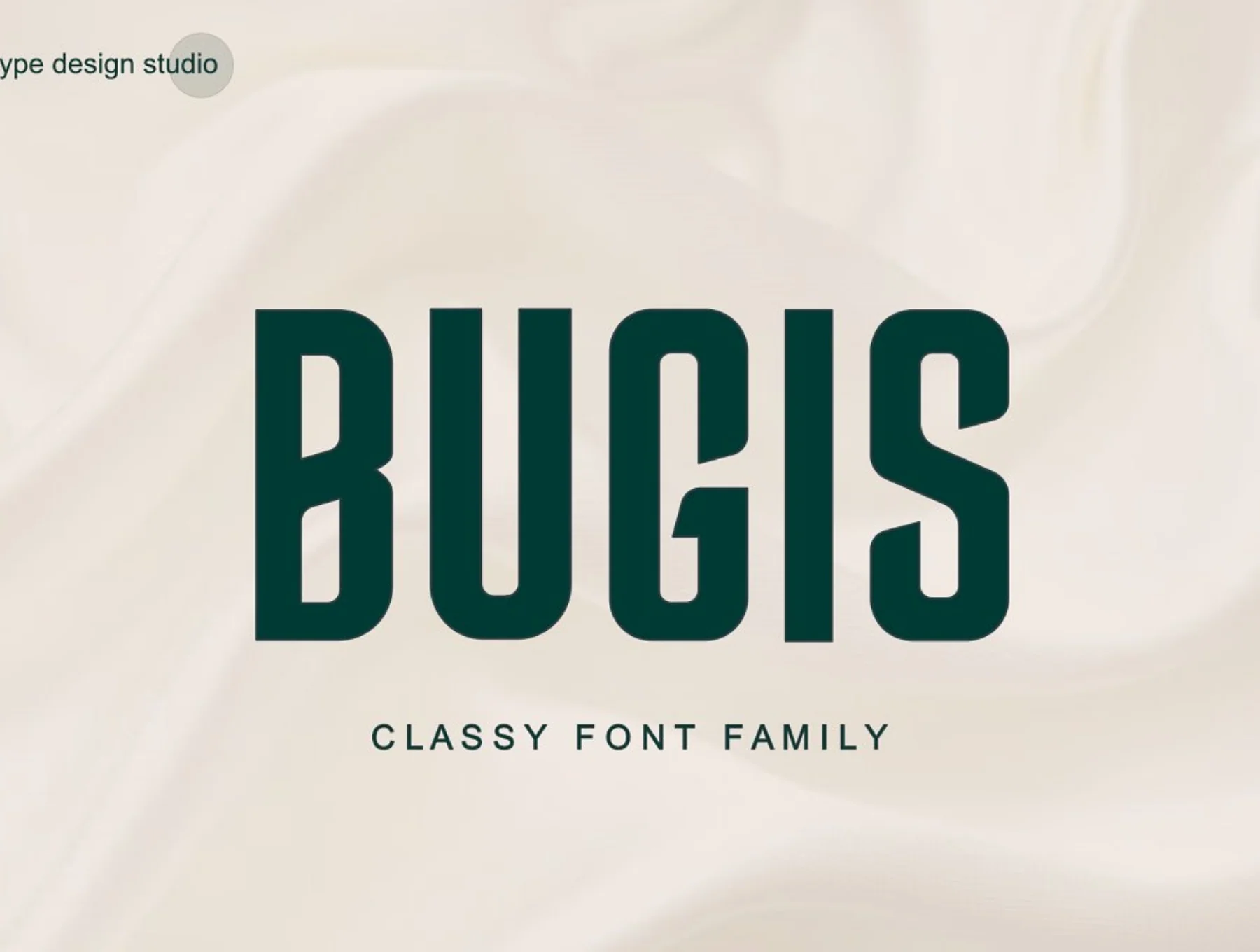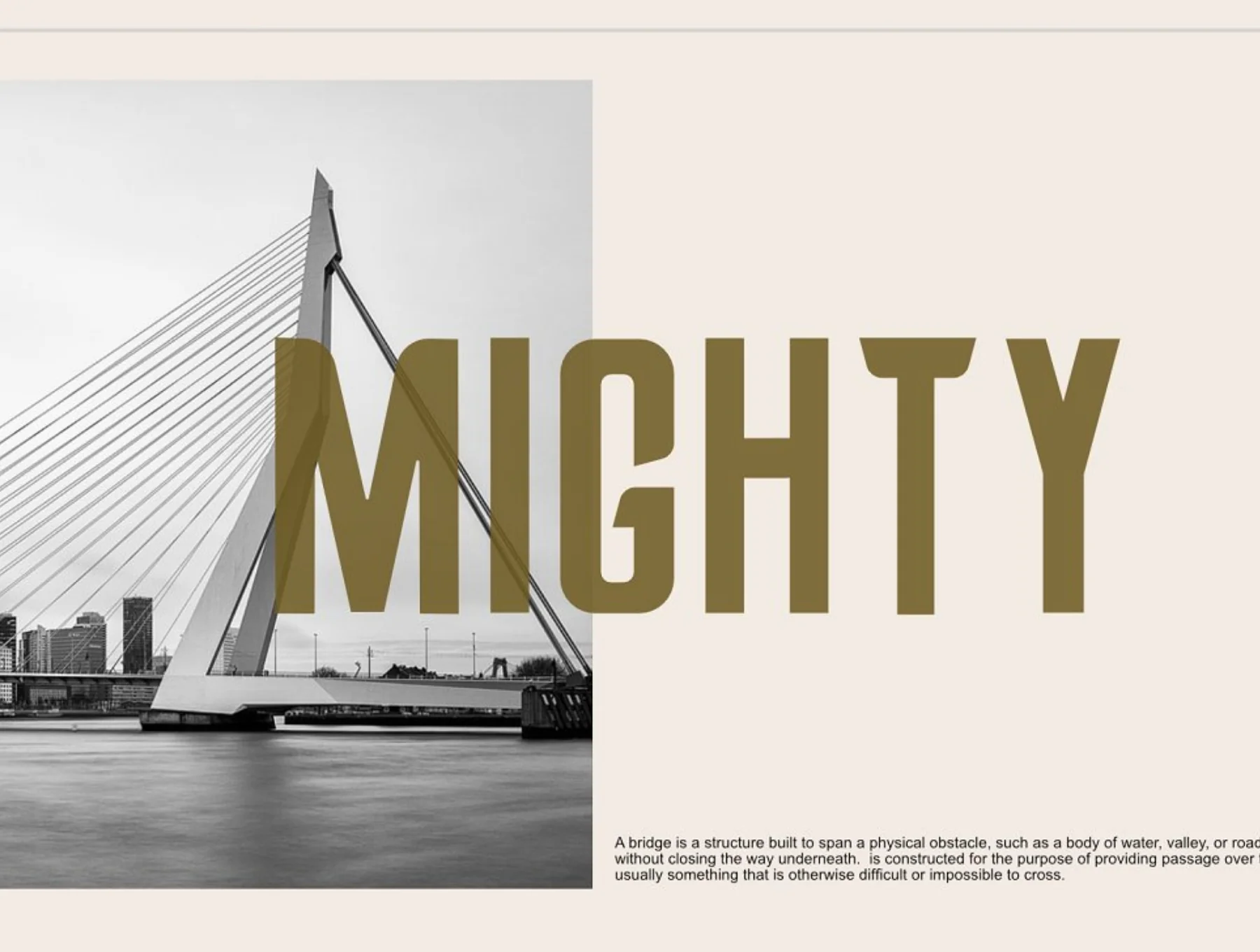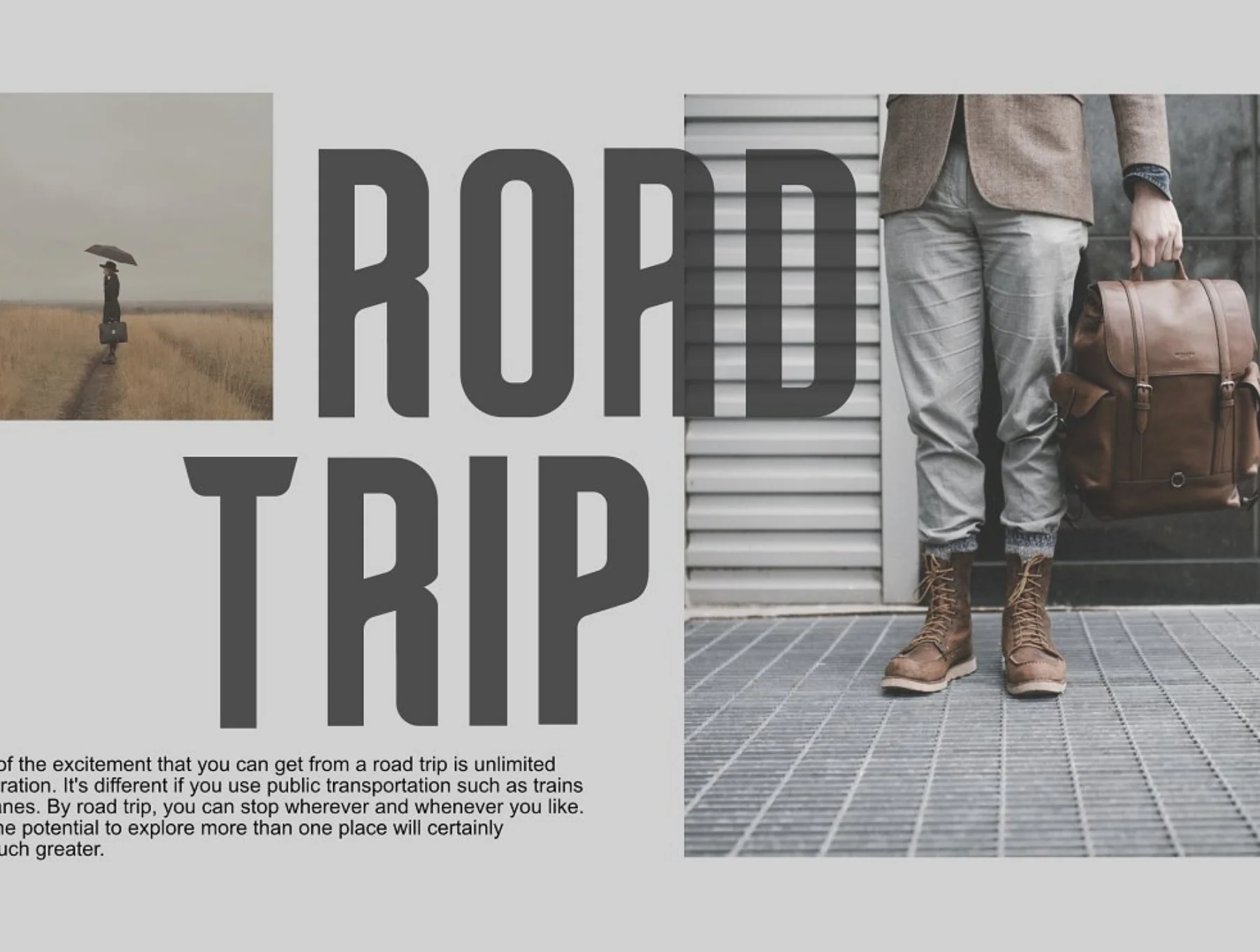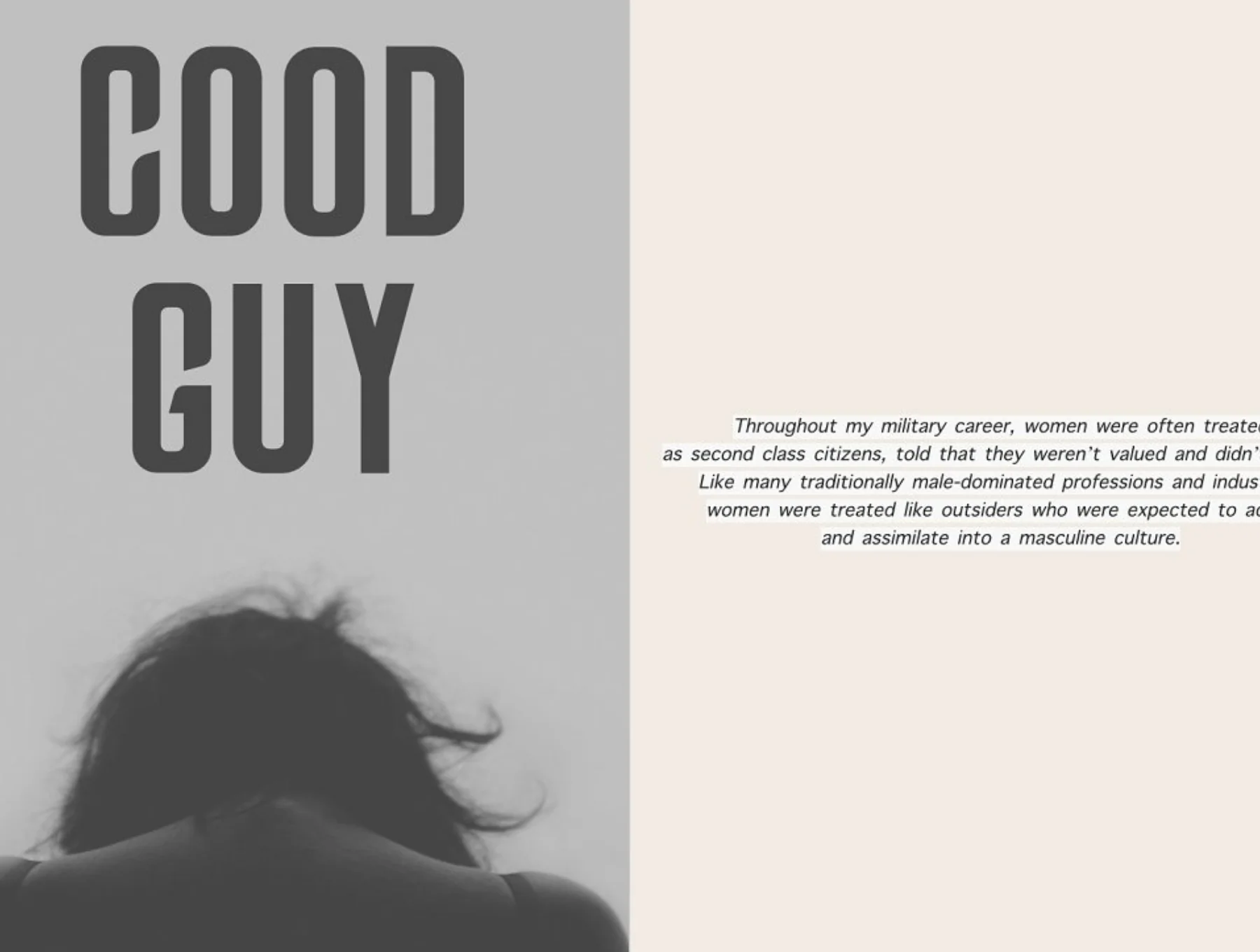
Bugis Upright Font
Non-italic Bugis typeface
Bugis is an upright typeface with wide-ranging uses, performing beautifully at both large and small sizes. Ideal for logos, editorial layouts, packaging, apparel branding, magazine titles, or stylish text placed over images.